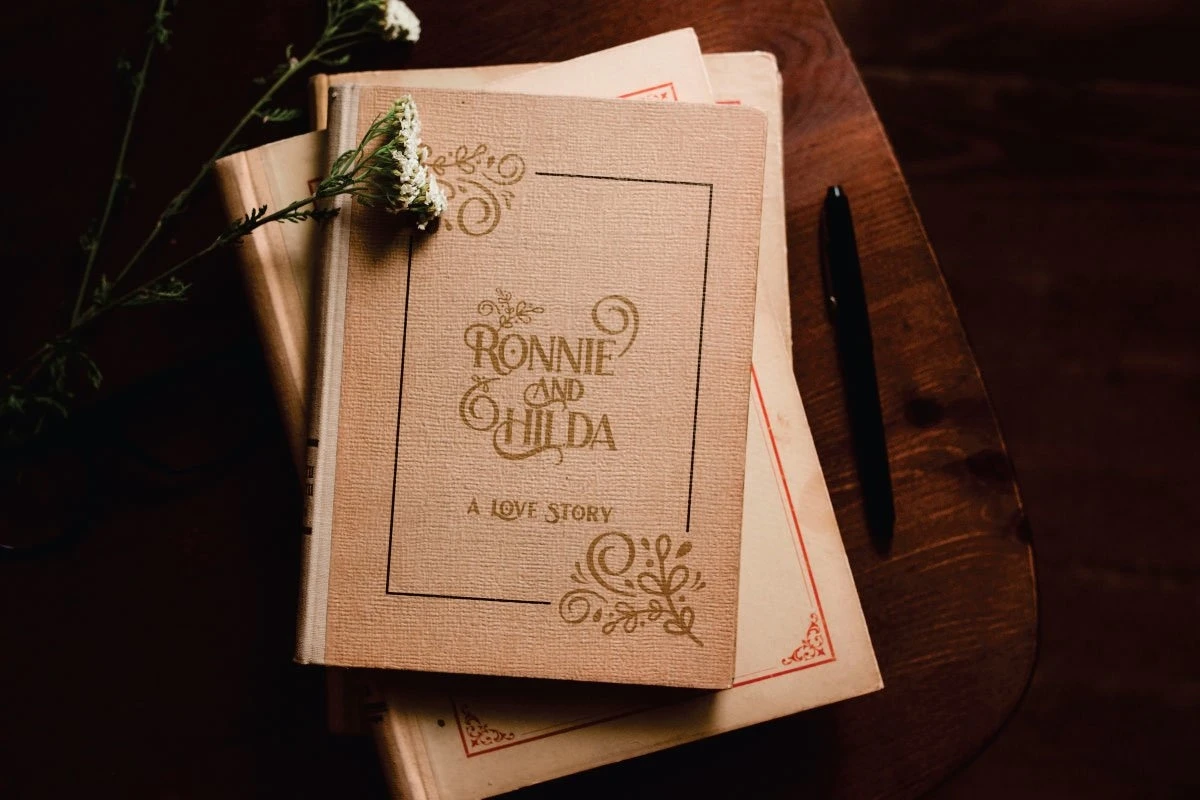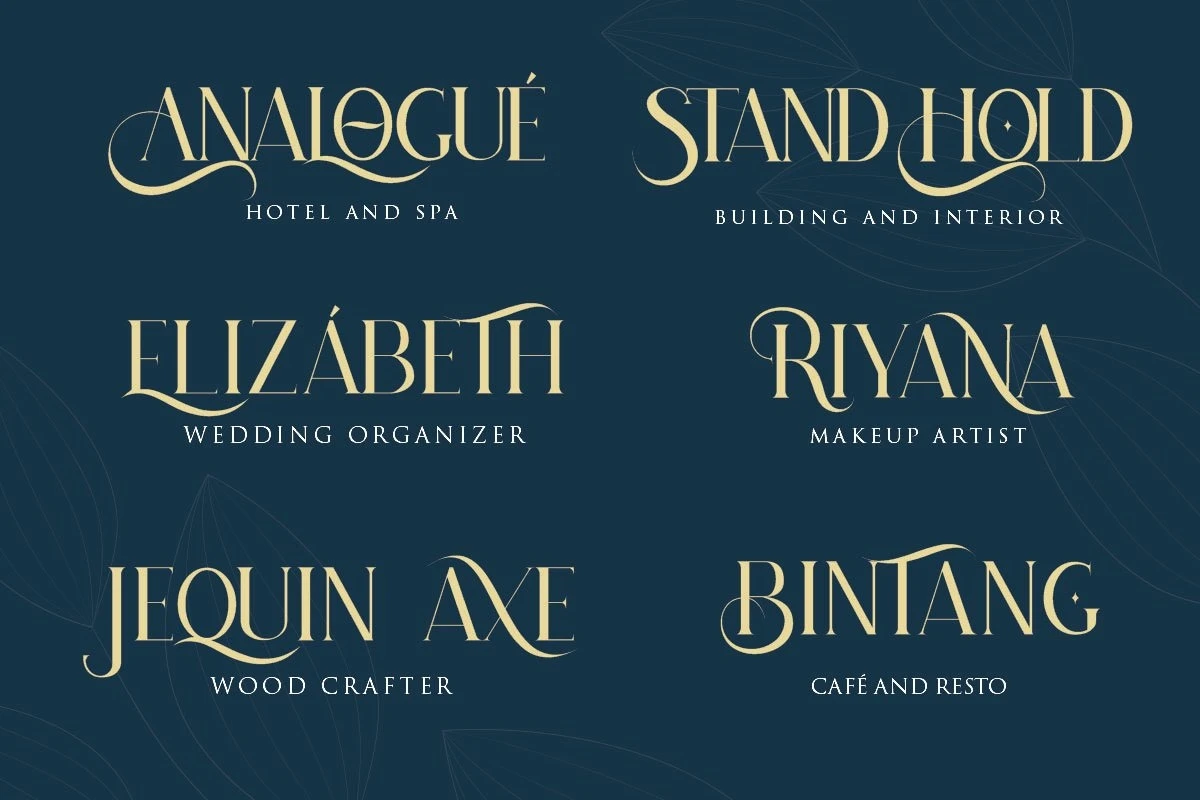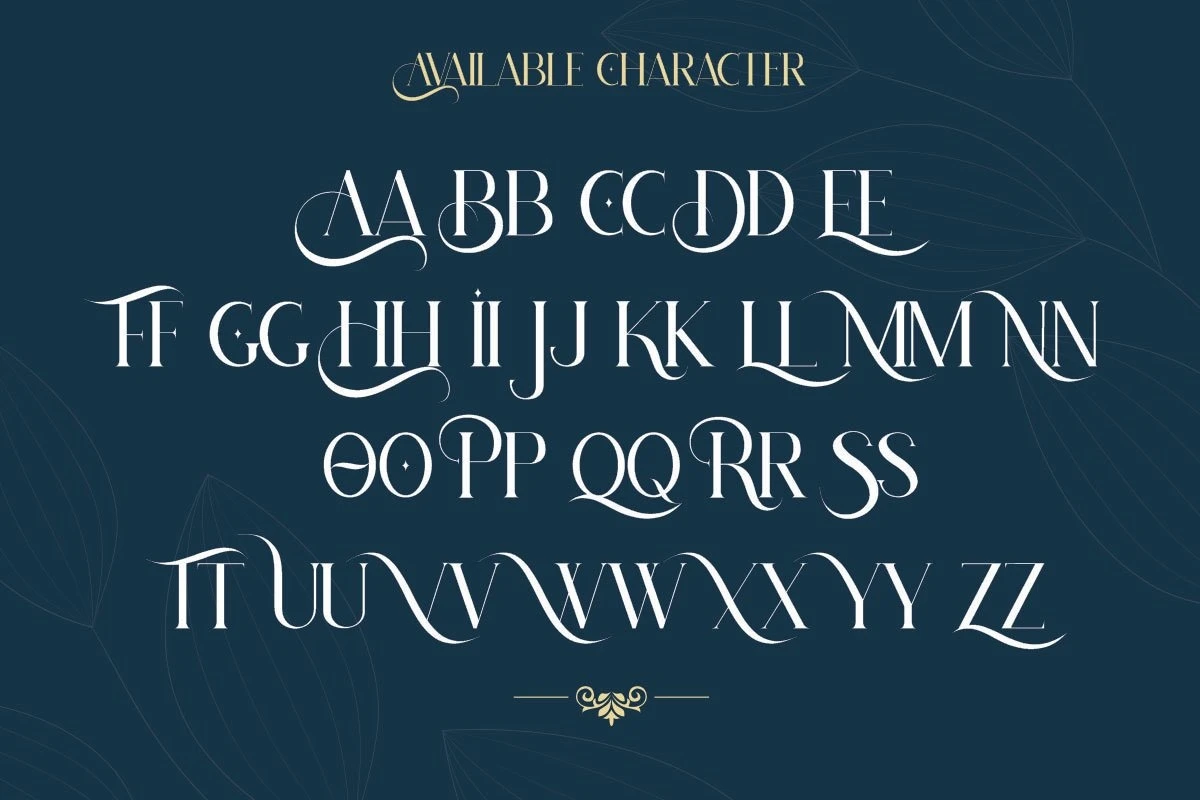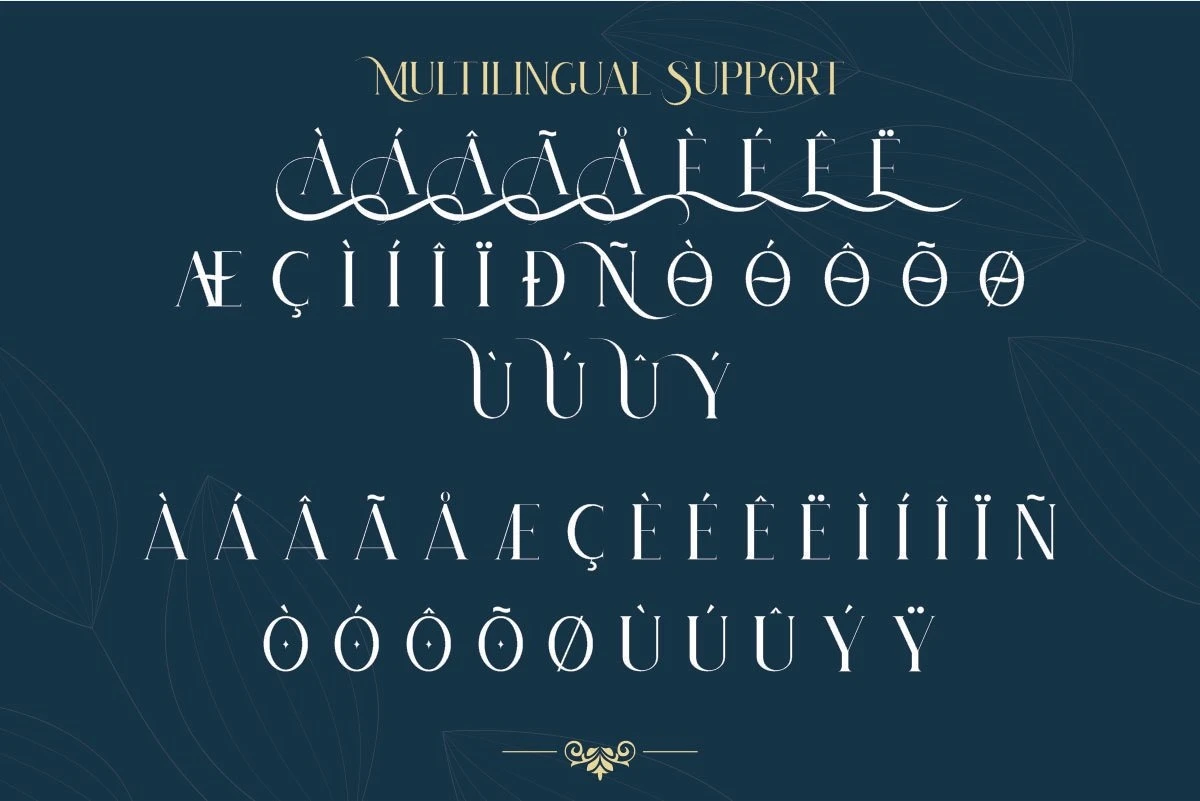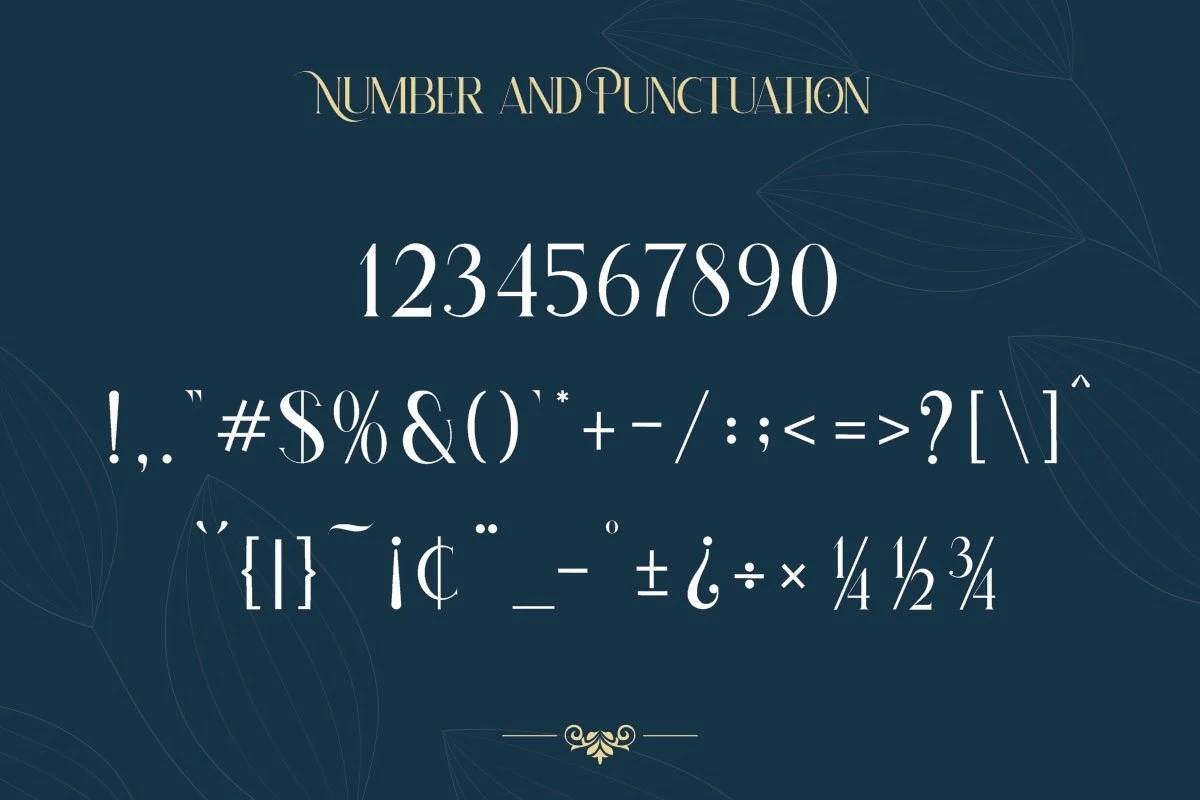
This is a modern font script. This font comes with a thin and italic style, made very slowly to get a neat result so it will create a very elegant impression on this font.
With a style like this, this font will be suitable in use for logo's, branding projects, homeware designs, product packaging, mugs, quotes, posters, shopping bags, logo's, t-shirts, book covers, name card, invitation cards, greeting cards, and all your other lovely projects.